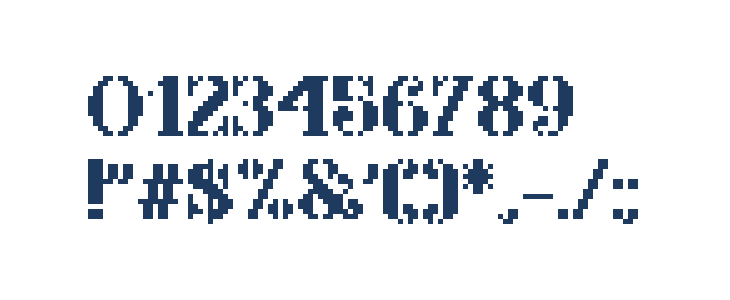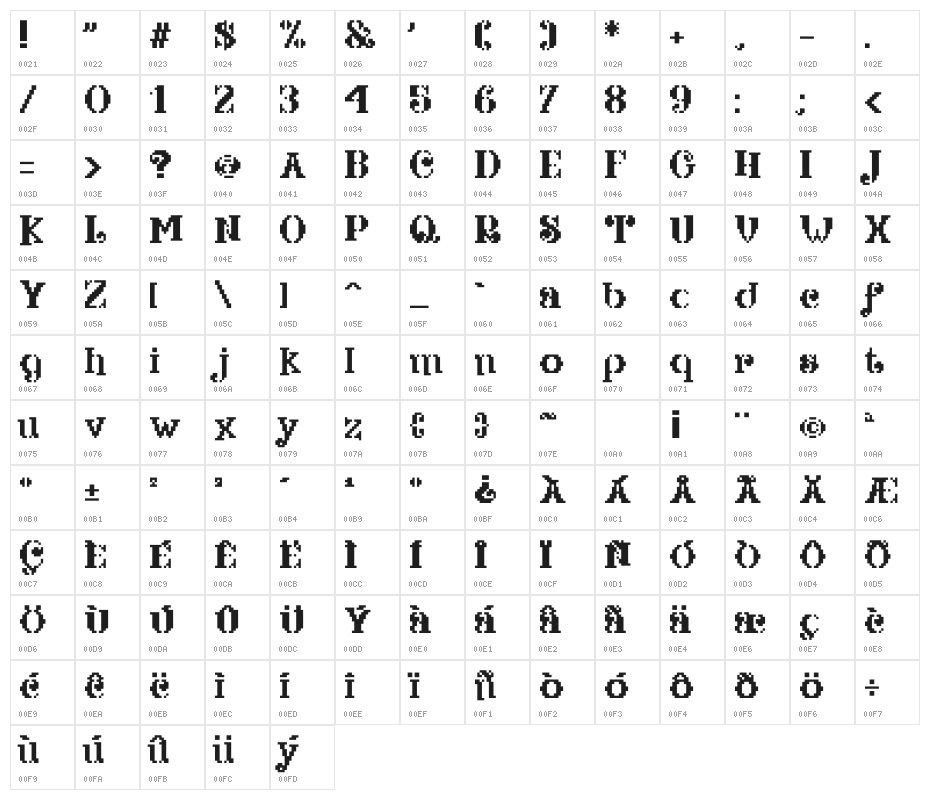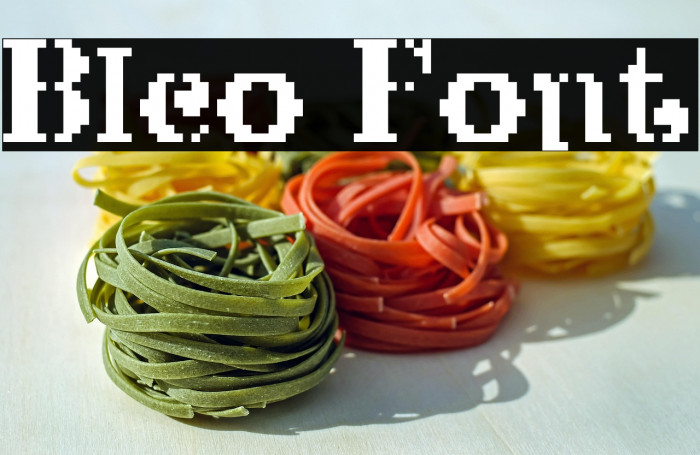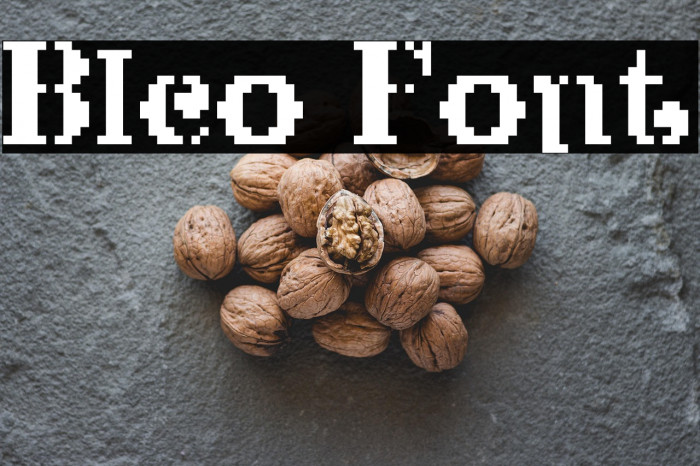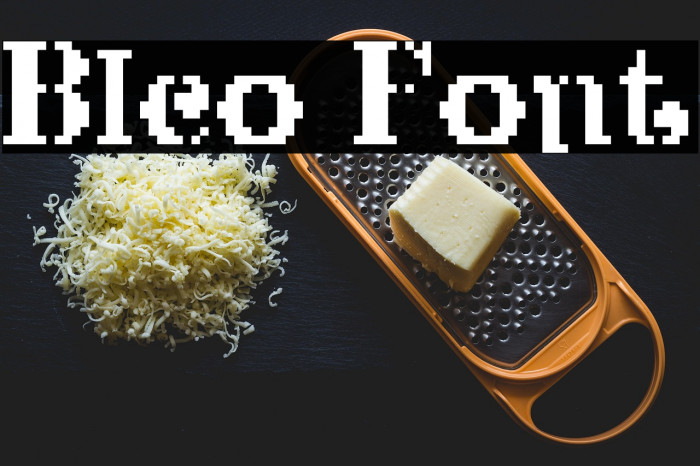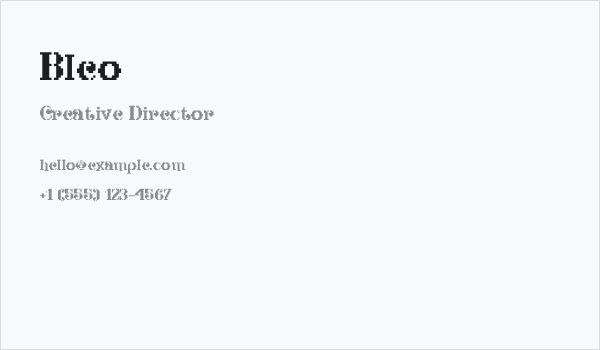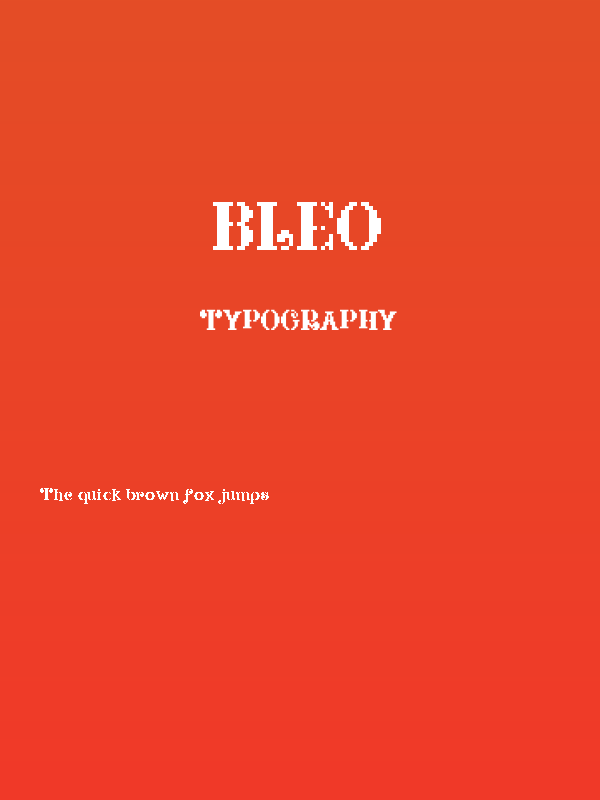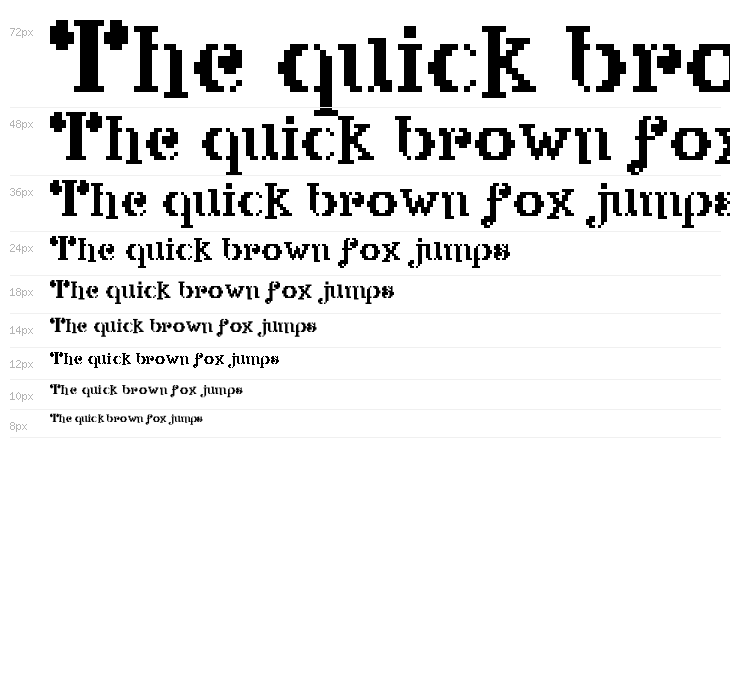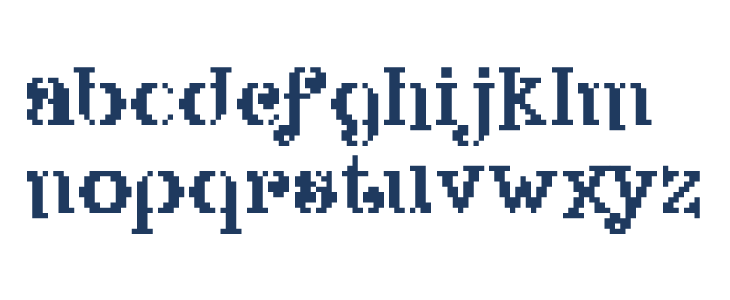
Bleo Font
Bleo Description
This font features a bold and decorative style with a distinct pixelated appearance, reminiscent of early digital or video game typography. The characters are blocky and geometric, with sharp edges and a uniform thickness throughout. Uppercase and lowercase letters maintain a consistent height, contributing to a cohesive and structured look. The numbers and special characters follow the same design principles, ensuring visual harmony across all elements. This font's unique style makes it stand out, offering a nostalgic yet modern aesthetic.
Overall StyleRetro, Digital
Use CaseLogos, Posters, Video game graphics
Proposed ProjectsIdeal for retro-themed designs, video game graphics, digital art projects, and any creative work that seeks to evoke a sense of nostalgia for early digital aesthetics.